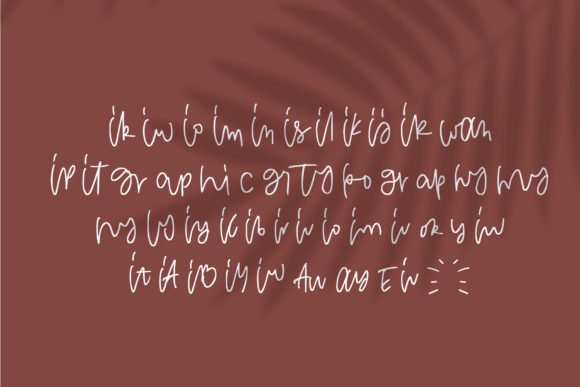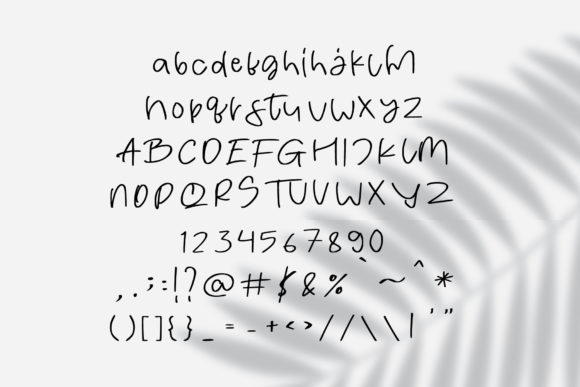
Introducing Give Away Font: The Perfect Handwritten Font for Designers and Crafters
Are you a designer or crafter looking for a unique and playful font to elevate your creative projects? Look no further than Give Away Font, a fun and quirky handwritten font that’s perfect for a wide range of applications. In this article, we’ll explore the features and benefits of Give Away Font, and show you how it can add a touch of personality to your designs.
A Versatile Font for Any Project
Give Away Font is a highly versatile font that’s suitable for a wide range of projects, including logos, invitations, stationery, wedding designs, social media posts, advertisements, product packaging, product designs, labels, photography, watermarks, and special events. Whether you’re working on a personal project or a client’s, Give Away Font is sure to add a touch of whimsy and personality to your designs.
What Makes Give Away Font Special?
So, what sets Give Away Font apart from other fonts? Here are just a few of its standout features:
- Handwritten style: Give Away Font has a playful, handwritten style that’s perfect for adding a personal touch to your designs.
- Wide range of uses: As mentioned earlier, Give Away Font is suitable for a wide range of projects, from logos and invitations to social media posts and product packaging.
Give Away Font offers a range of benefits for designers and crafters, including:
- Time-saving: Give Away Font saves you time and effort, as you can quickly and easily add a unique and playful touch to your designs.
- Unique designs: With Give Away Font, you can create unique and eye-catching designs that stand out from the crowd.
Tips and Tricks for Getting the Most Out of Give Away Font
Here are some tips and tricks for getting the most out of Give Away Font:
- Experiment with different colors: Give Away Font looks great in a range of colors, so don’t be afraid to experiment and find the perfect hue for your design.
- Mix and match with other fonts: Give Away Font pairs well with other fonts, so try mixing and matching it with different fonts to create a unique look.
Give Away Font is a fun and quirky handwritten font that’s perfect for designers and crafters looking to add a touch of personality to their projects. With its PUA encoding, wide range of uses, and ease of use, Give Away Font is a great addition to any design library. So why not give it a try and see how it can elevate your designs?